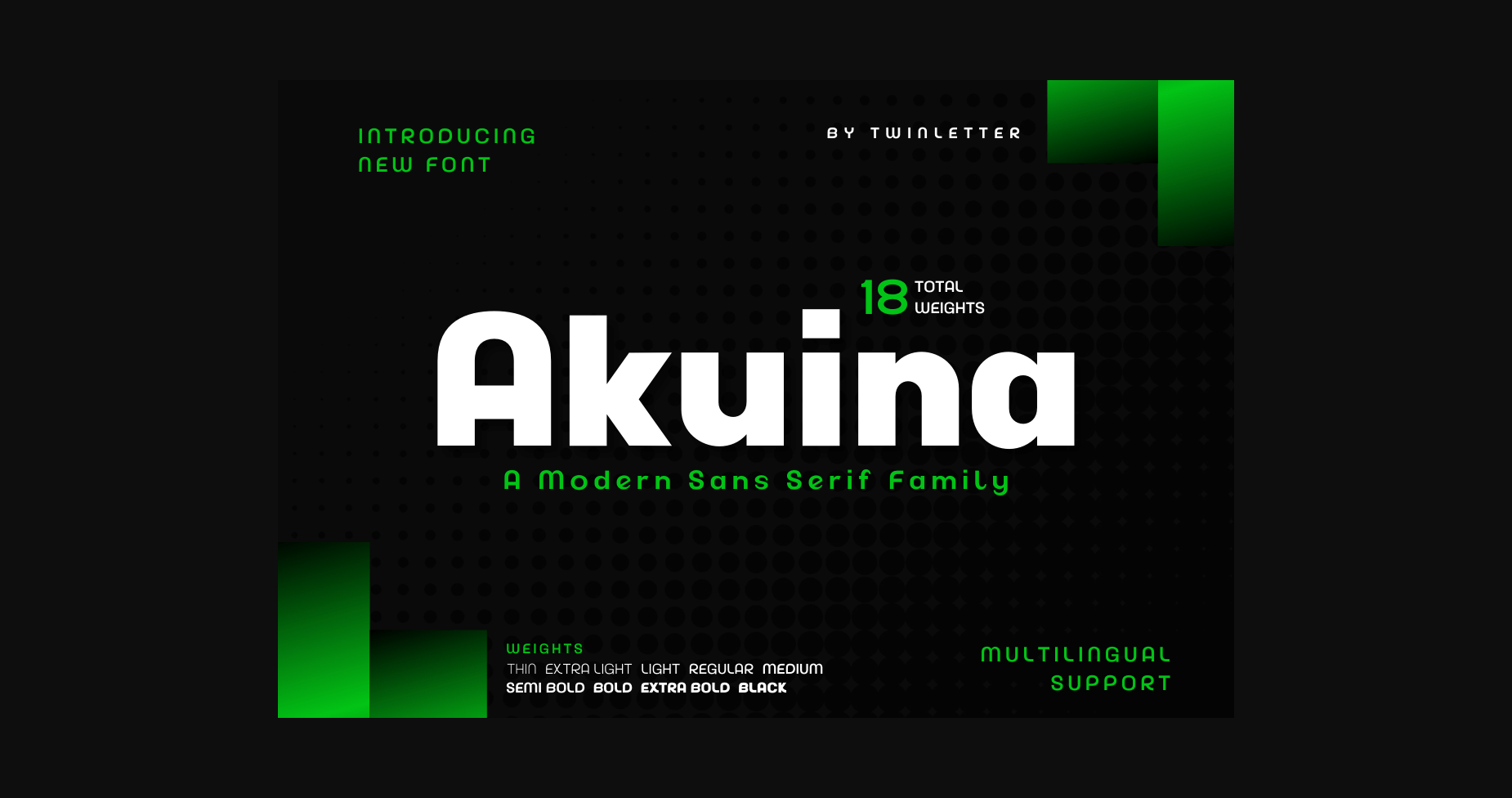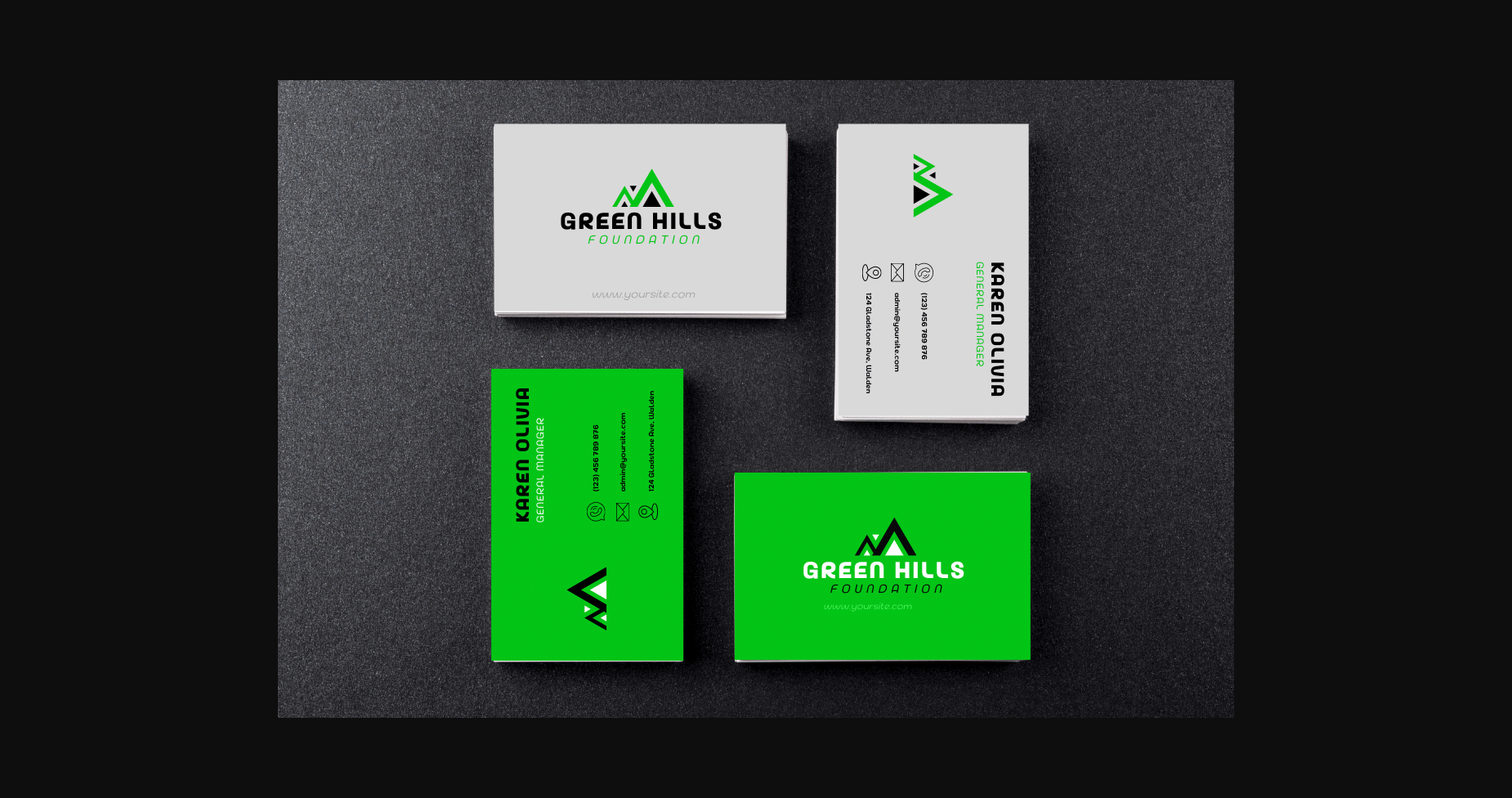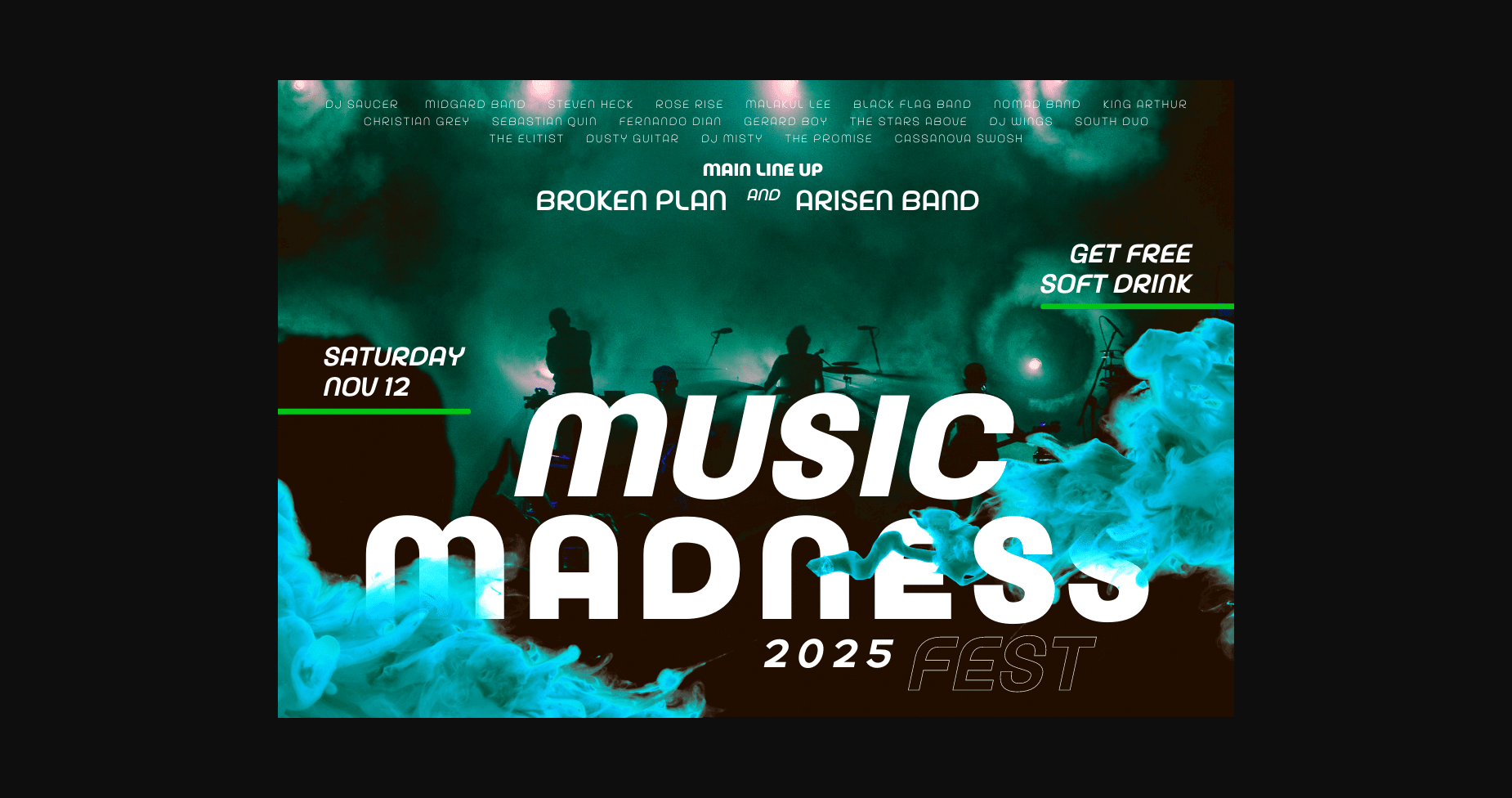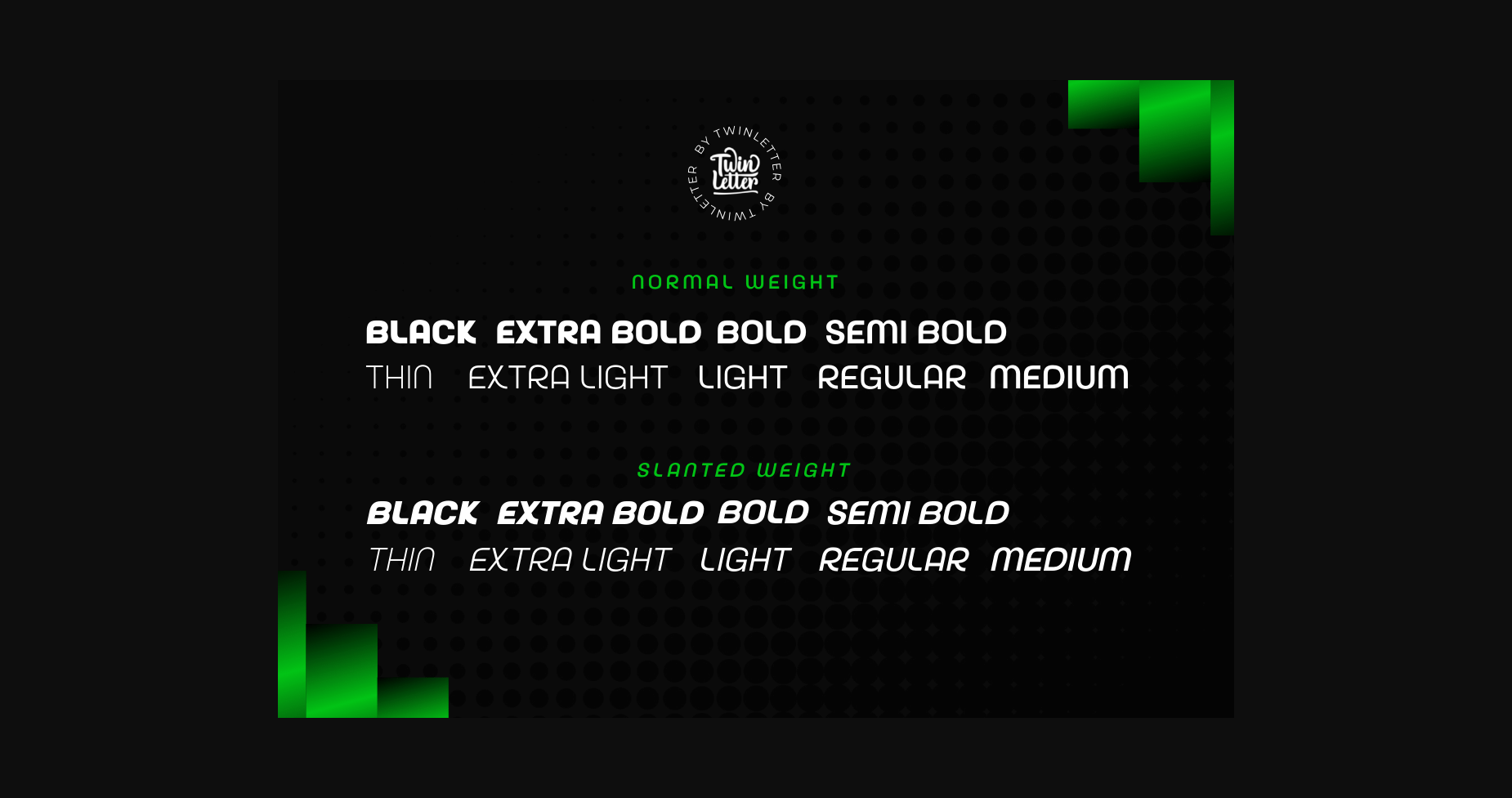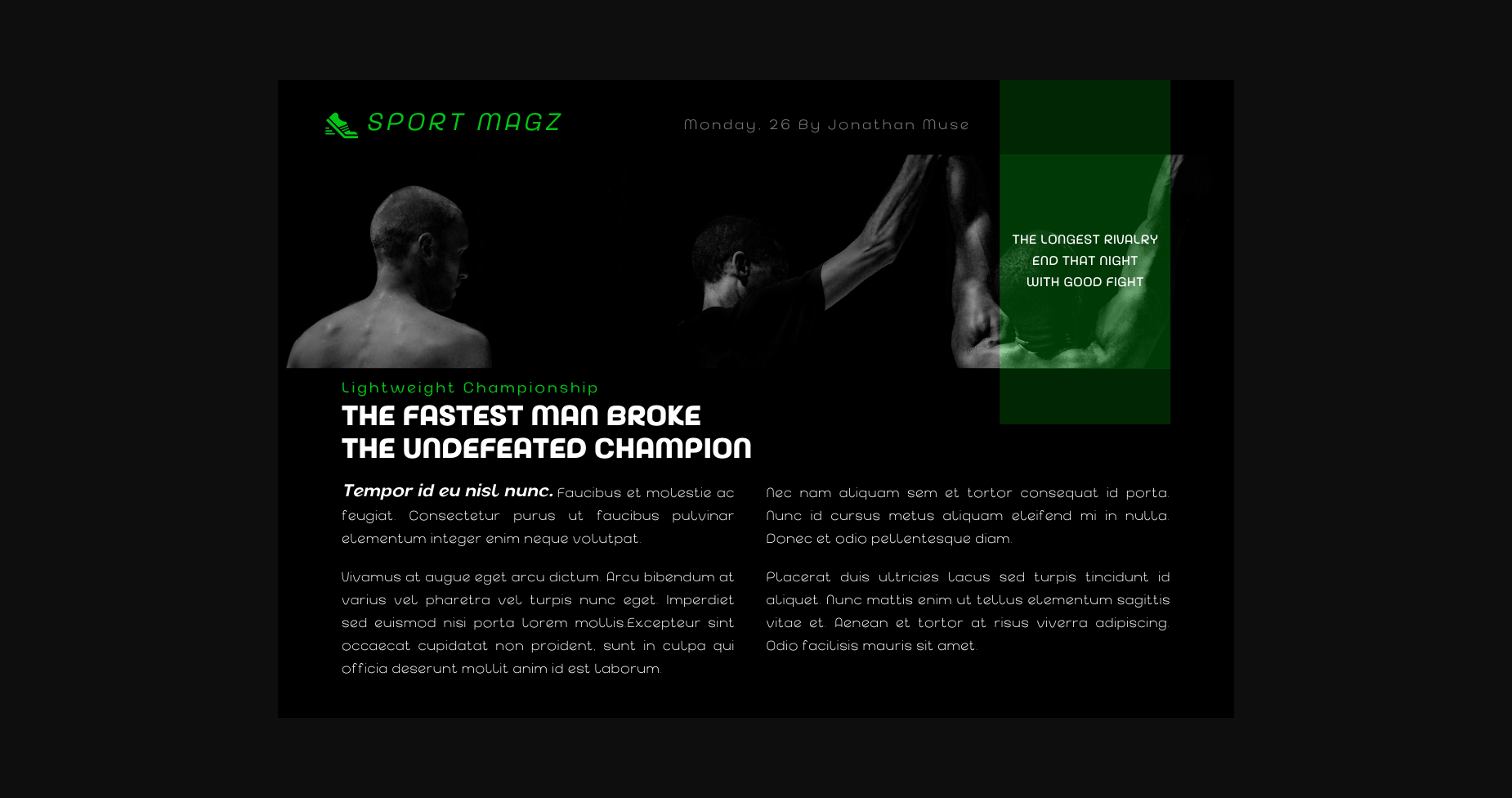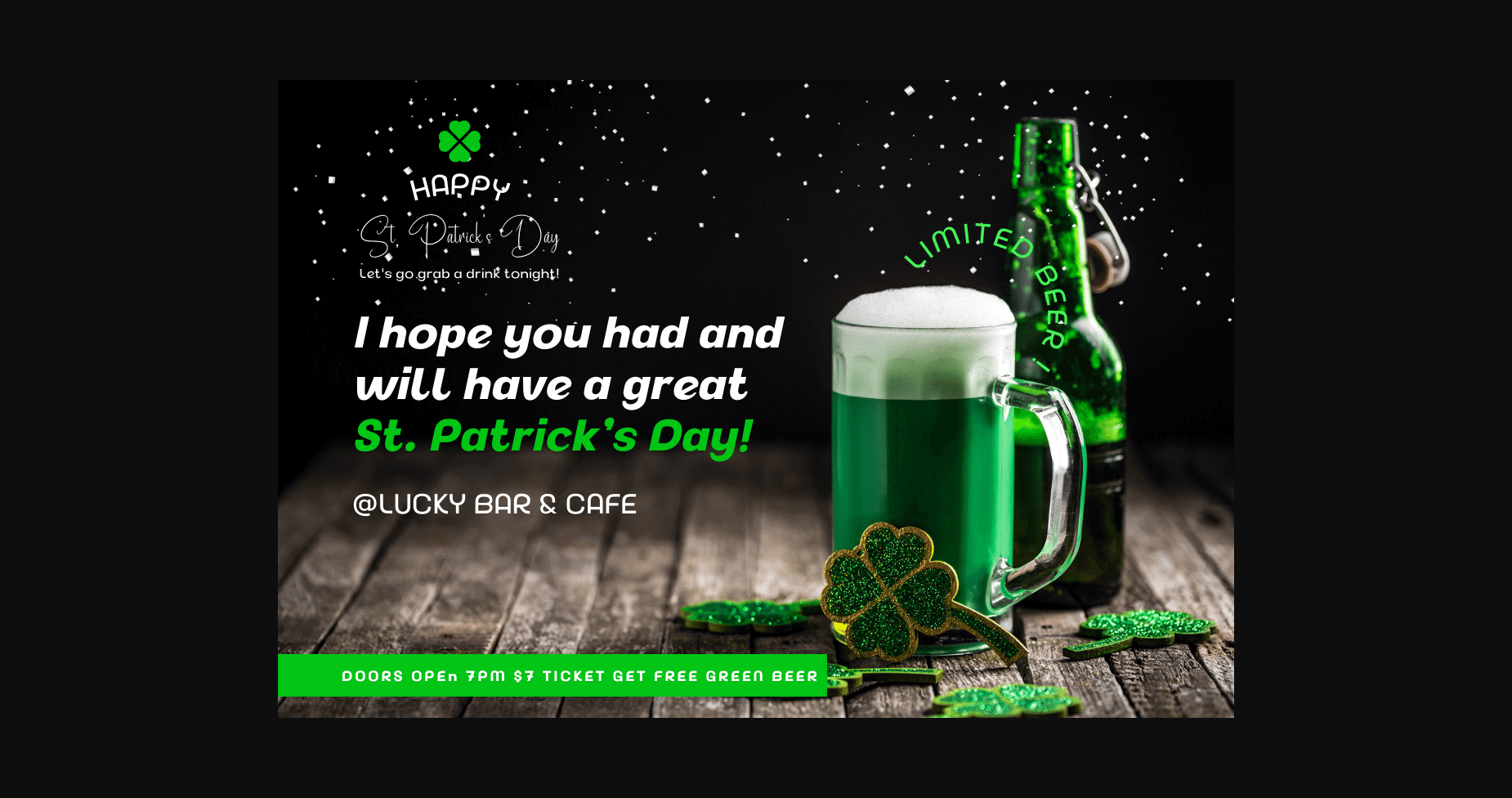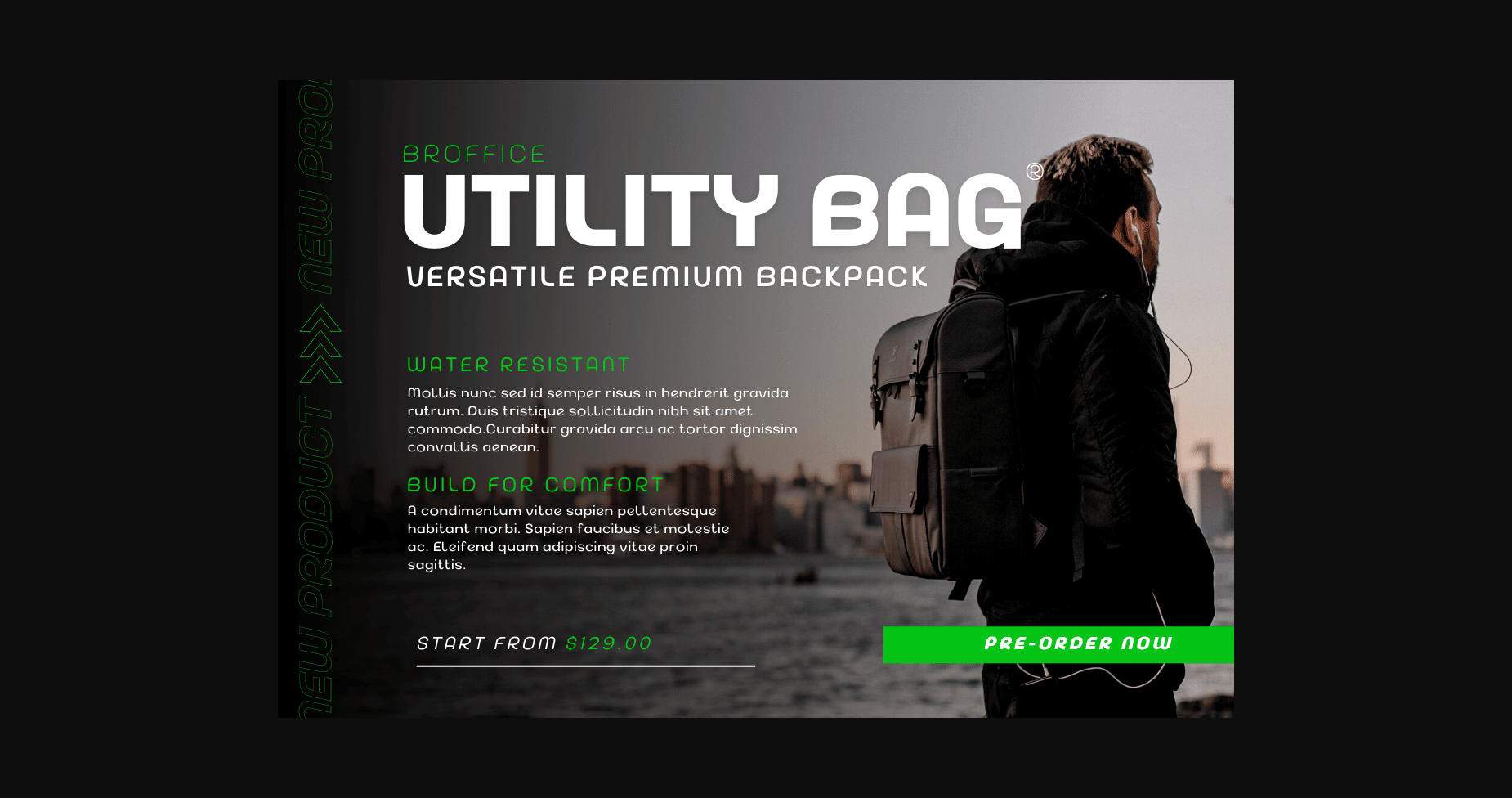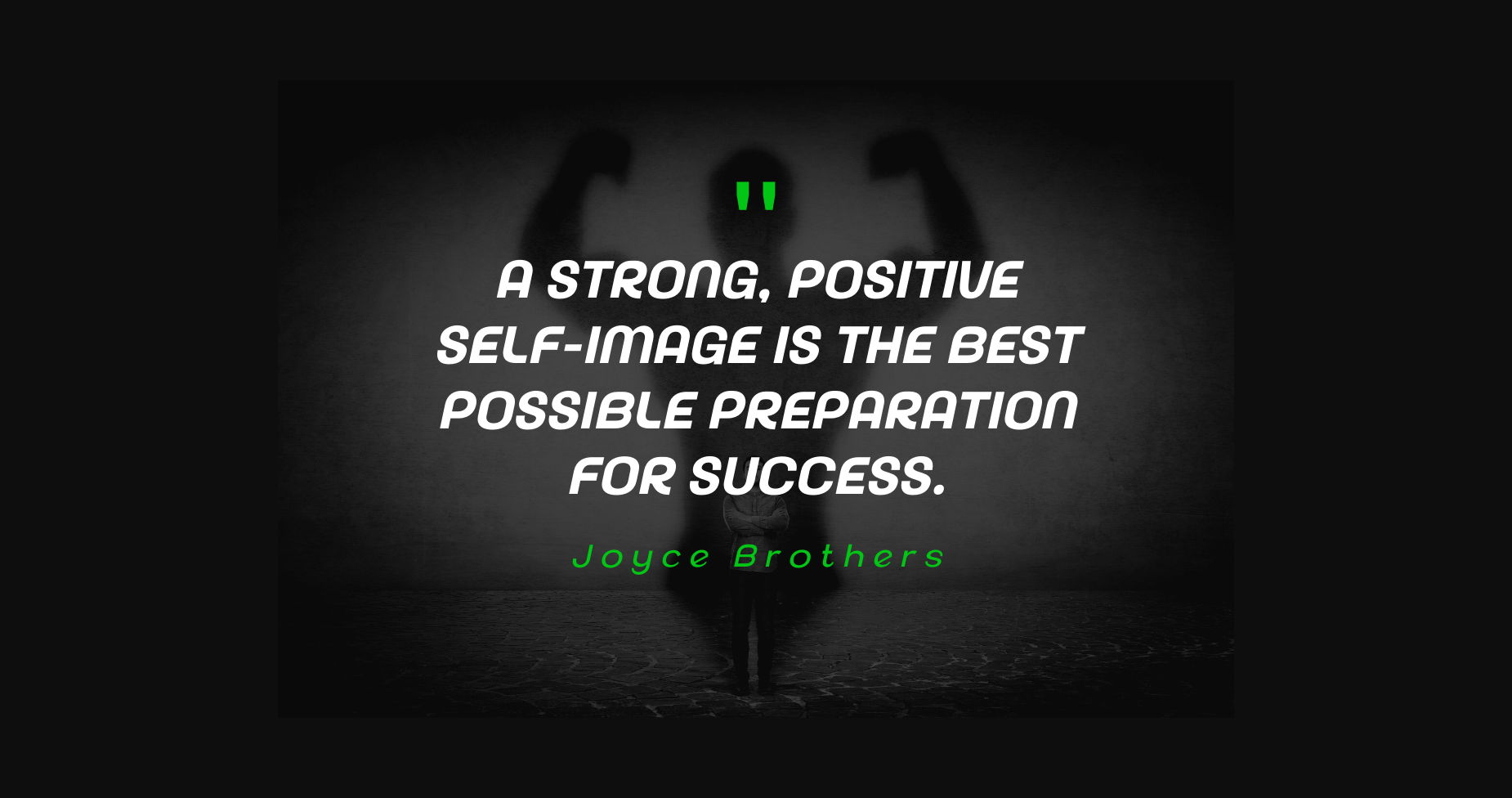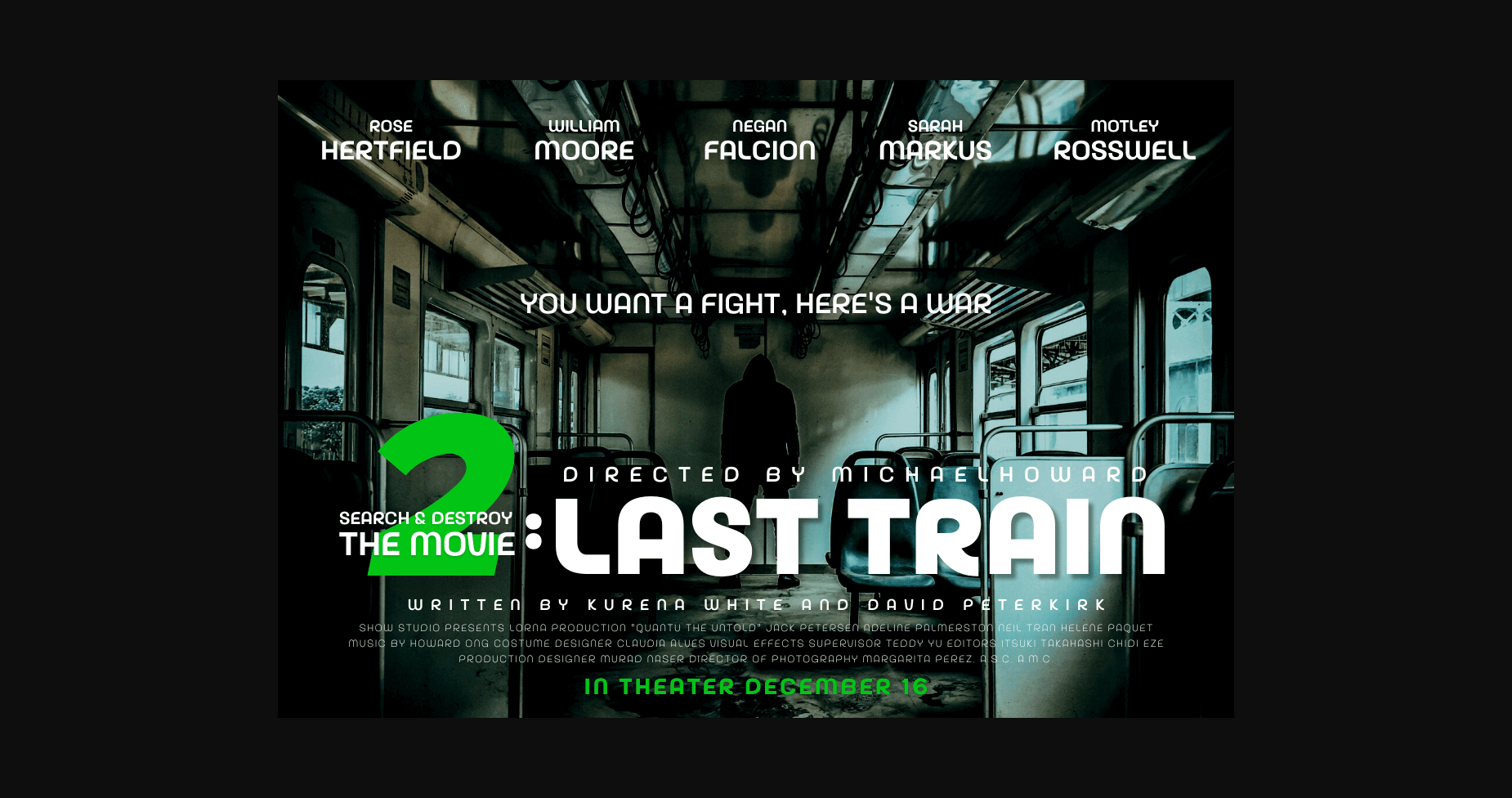
HomeSans Serif FontsAkuina Font Sans Serif Fonts Akuina Font FacebookXPinterestWhatsApp 1 of 11 ... Akuina Font Poster 2... Akuina Font Poster 3... Akuina Font Poster 4... Akuina Font Poster 5... Akuina Font Poster 6... Akuina Font Poster 7... Akuina Font Poster 8... Akuina Font Poster 9... Akuina Font Poster 10... Akuina Font Poster 11... About Akuina Font Akuina is an elegant and modern sans serif font. This minimalist and clean vibe can easily apply to your favorite designs such as book covers, magazines, social media posts, invitations, and so much more! DOWNLOAD NOW People also explored Rosalinda Handamde Font Shuttezerg Font Christmas Reindeer Font Blueberry Point Font Ditsa Calista Font Winter Snow Font Beertop Font Spider Web Font Camelia Font 355 0 TagsAkuinaAkuina Font Previous articleSharung FontNext articleQuicklight Font LEAVE A REPLY Cancel reply Comment: Please enter your comment! Name:* Please enter your name here Email:* You have entered an incorrect email address! Please enter your email address here Website: Save my name, email, and website in this browser for the next time I comment. Personal Use Free Super Caramel Font Personal Use Free Read more about this font Braindly Personal Use Free Read more about this font Darla Personal Use Free Read more about this font Predators Personal Use Free Read more about this font BLOG Free Fonts Risk: Why Free Fonts Can Be Dangerous for Designers Free Fonts Risk: Why Free Fonts Can Be Dangerous for Designers Using free fonts is a common practice in web and graphic design. However, the... Top 10 Handwritten Fonts That Elevate Your Designs Where to Buy American Fonts Online in 2024 Using Fonts in Digital Marketing: Tips to Strengthen Your Brand Identity